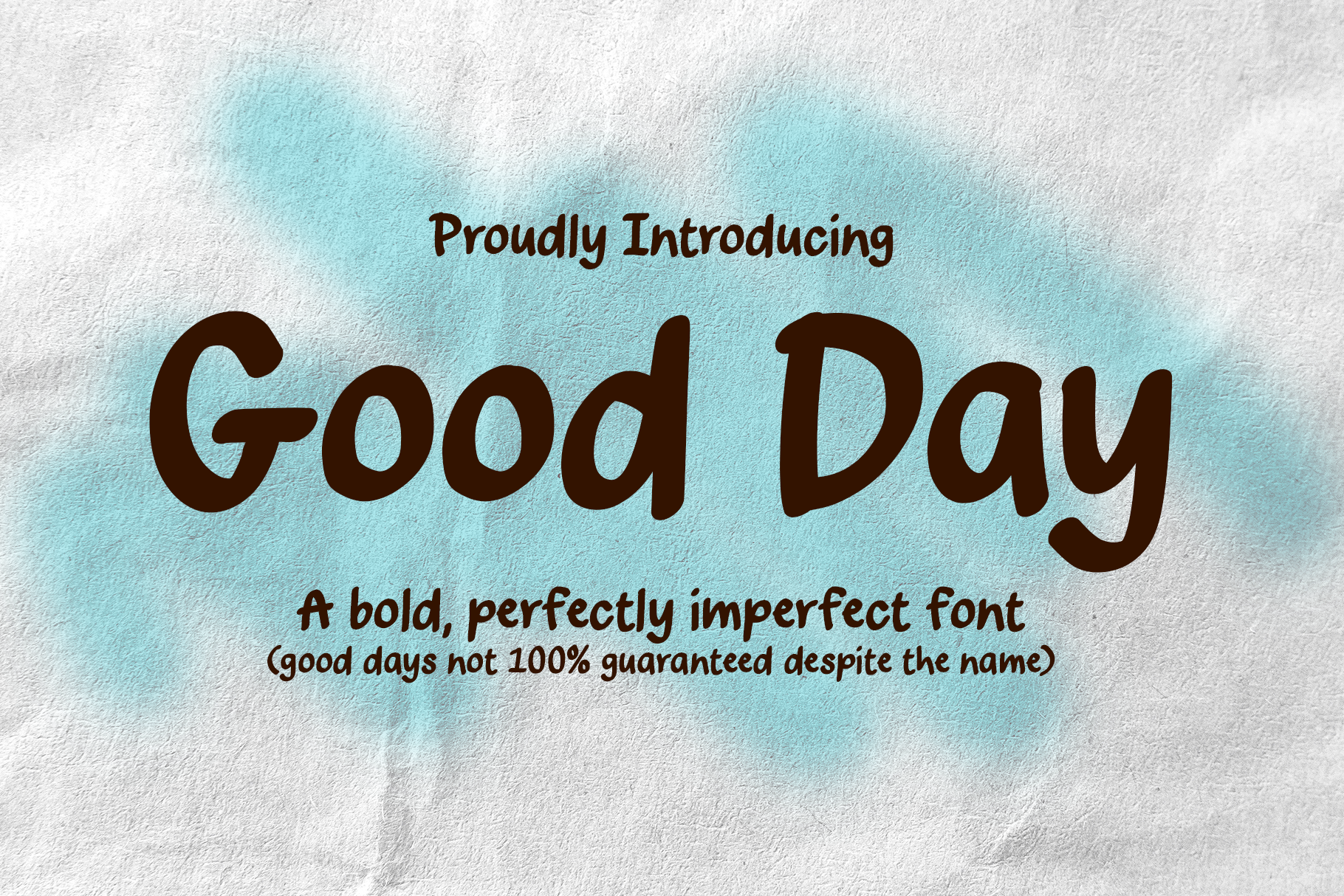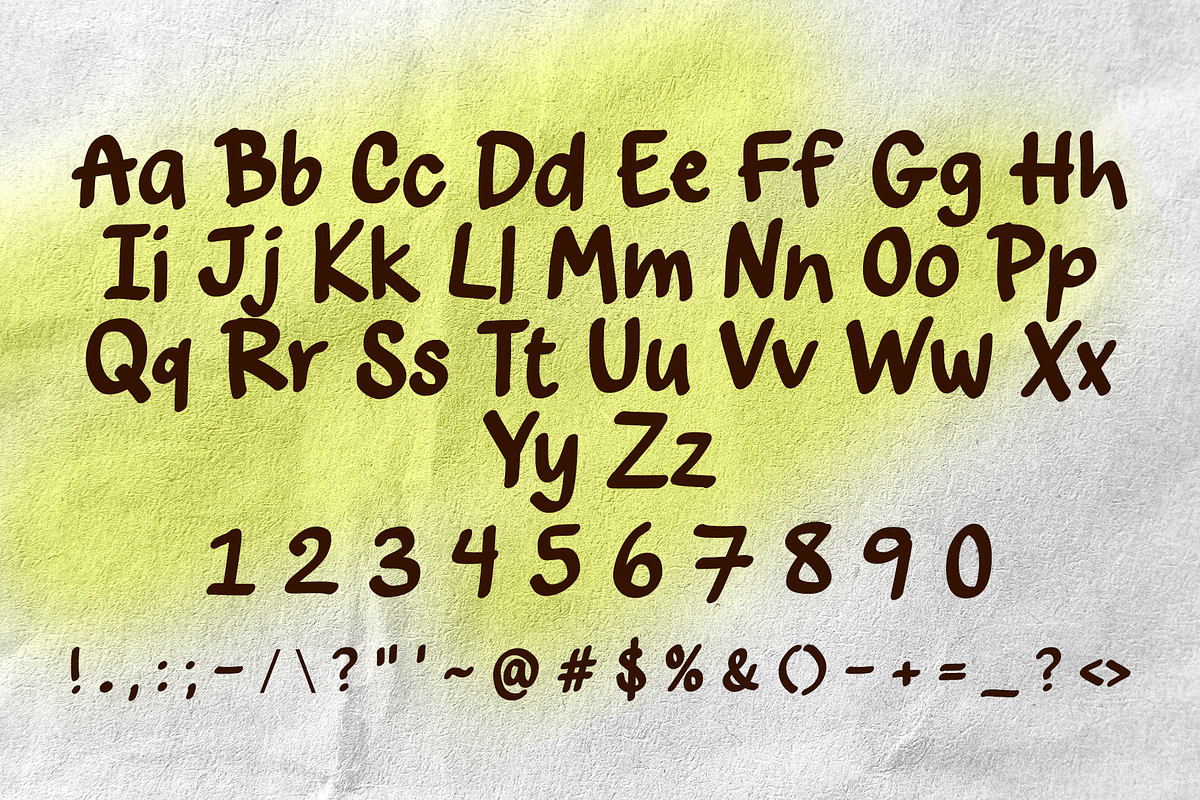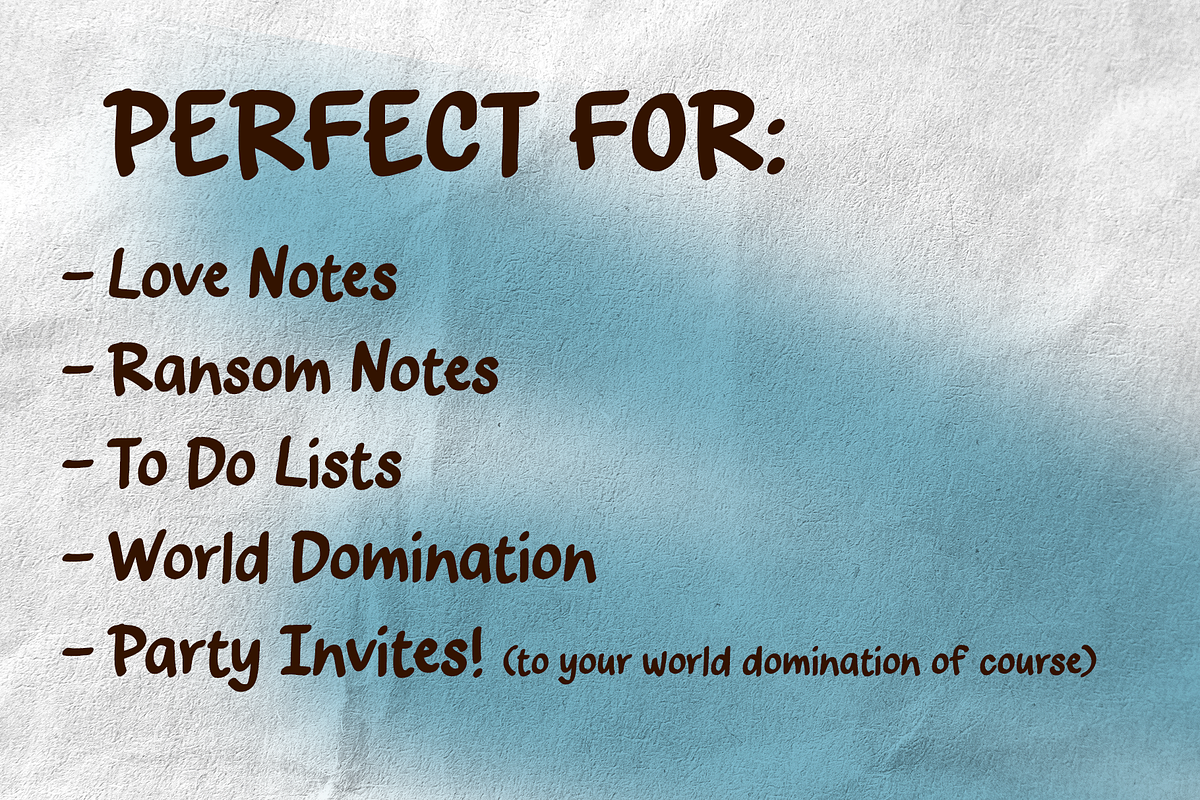
Good Day - A Handwritten Font
Meet Good Day, the handwritten font that’s as charming and lighthearted as its name! While it’s not guaranteed to give you a good day, it certainly won’t give you a bad one. With its playful, organic strokes and casual vibe, Good Day brings a touch of personality to any project, from branding and social media to invitations.
Perfectly imperfect, this font is all about celebrating the little quirks that make designs feel human and relatable. Whether you’re going for cheerful, creative, or simple world domination, Good Day is here to keep things fresh and stylish.
Why you’ll love it:
Handwritten charm: Every letter feels personal, authentic, and full of character. Versatile style: Works beautifully for casual designs, modern aesthetics, and everything in between. Easy to use: Includes a full set of uppercase and lowercase letters, numbers, and punctuation to bring your vision to life.
Brighten your designs (and maybe your day) with Good Day—the font that’s as fun to use as it is to look at!